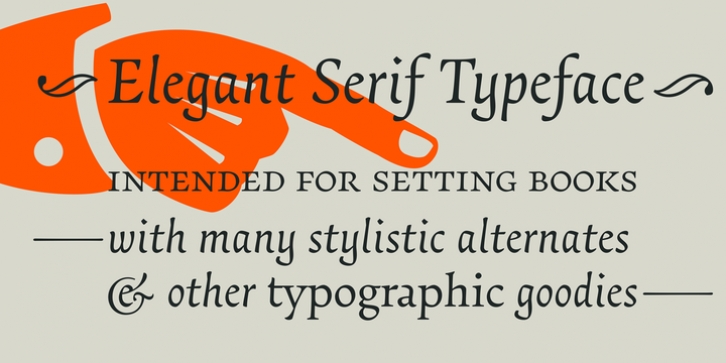
Essay is an elegant serif typeface intended for setting books, with many stylistic alternates and other typographic goodies, designed by Stefan Ellmer.
It is a highly legible text face with a natural flow of reading. This is enhanced by a slight slant of the roman, the combination of open and closed apertures and the amalgamation of organic strokes and counters with a static, fully straight baseline.
Essay Text Regular looks back to the spirit of the french Renaissance, when the roman typographic letterforms came to full emancipation. Departing from that historical reference, Essay Text gets rid of all sentimental antiquity and becomes a contemporary interpretation of the “archetypes” of that period.
Essay Text Italic refers to that more vaguely, resulting in a formalised look with fairly upright and open shapes and little cursiveness. As in the Renaissance, before the mating of roman and italic, Essay Text Italic works as a separate text face and a perfect secondary type.
The name Essay derives from the literary meaning of the word, attempt or trial. Therefore, the typeface Essay can be seen as an attempt to express an opinion about reading, the omnipresence of history, the importance of calligraphy and the importance to deviate from that calligraphic source; as well as an attempt to crystallise lettershapes in balance between convention and the designer’s personal idiom.